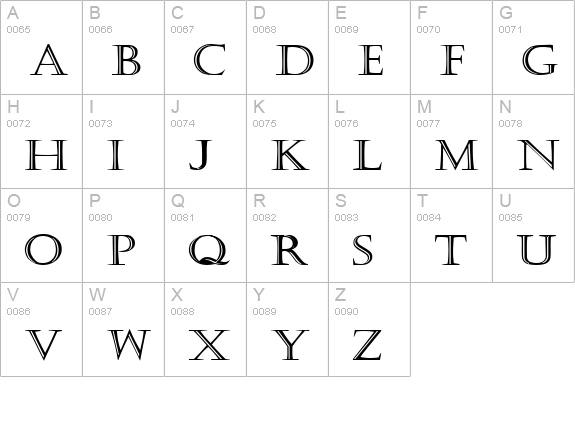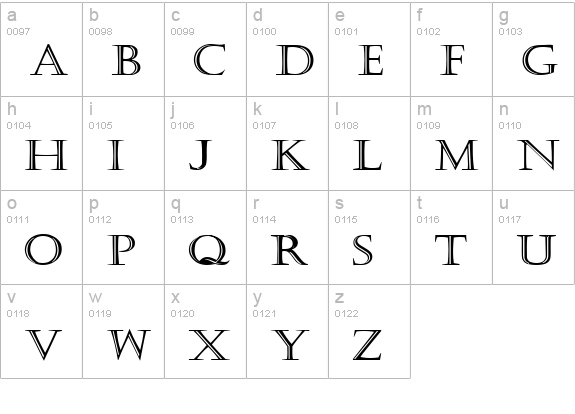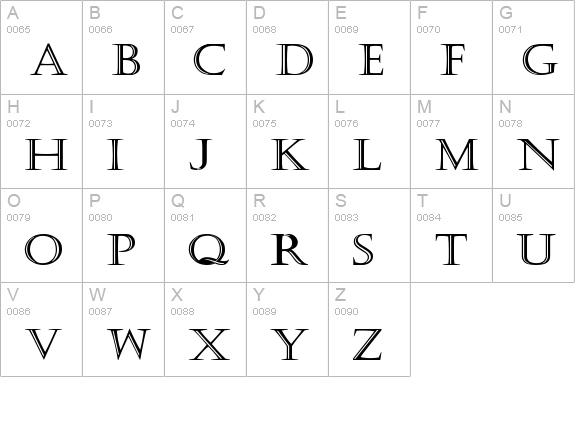
Kastellar Bold Font Details
Kastellar Bold is a strong, high-contrast variant in the Kastellar typeface family \xE2\x80\x94 well suited to headlines, attention-grabbing titles, and strong calls-to-action.
Kastellar Bold font is a stunning display typeface that exudes a powerful and bold presence. Its strong and assertive letterforms make a statement wherever they are used, adding a touch of elegance and sophistication to any design project. This font is meticulously crafted with attention to detail, ensuring each character is perfectly balanced and harmoniously complements the others. The bold strokes and sharp angles give Kastellar Bold a distinct and eye-catching appeal, making it ideal for headlines, logos, posters, and any other creative endeavor that requires a touch of grandeur. What sets Kastellar Bold font apart is not only its exceptional design but also its availability as a free download. Yes, you read that right, this remarkable font is freely available to download at FontsMarket.com. Whether you are a professional designer or someone looking to enhance their personal projects, this font offers the perfect solution without breaking the bank. With Kastellar Bold font, you have the freedom to unleash your creativity and incorporate it into a wide range of designs. Whether you want to add a touch of elegance to a wedding invitation or make a bold statement with a brand logo, this font has got you covered. So go ahead, download Kastellar Bold font from FontsMarket.com and experience the power and beauty it brings to your designs. Let the boldness of this font captivate your audience and leave a lasting impression. Get ready to make a statement and stand out from the crowd with this remarkable typeface.